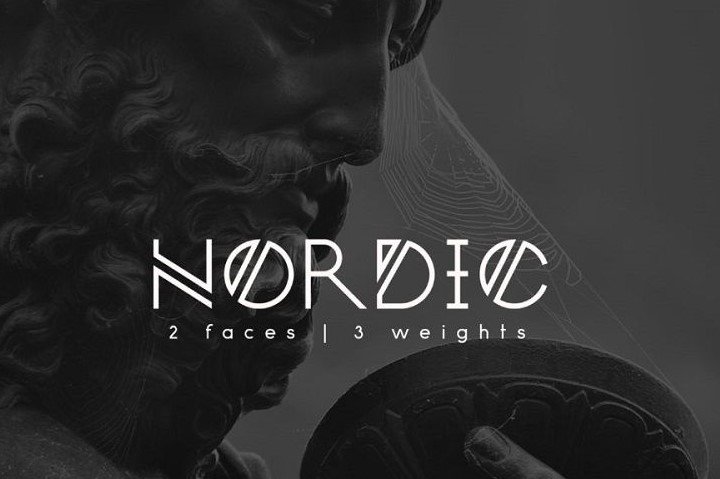
Hello graphic designers and website designers, we would like to introduce you to the unique and stylish Nordic Font. This font is known for its beautiful, decent, and smart appearance with high sharp strokes and great designs that will enhance the interest and attractiveness of your designs.
The font is best to use as pairing with century gothic because of its unique characters, and great strokes. You can view the samples of this font in the image below to get the idea how it will appear on your projects.
The Nordic Font is the famous and amazing typeface which is the most loved typeface around the world.
The headthinker is very close to the Nordic Font.